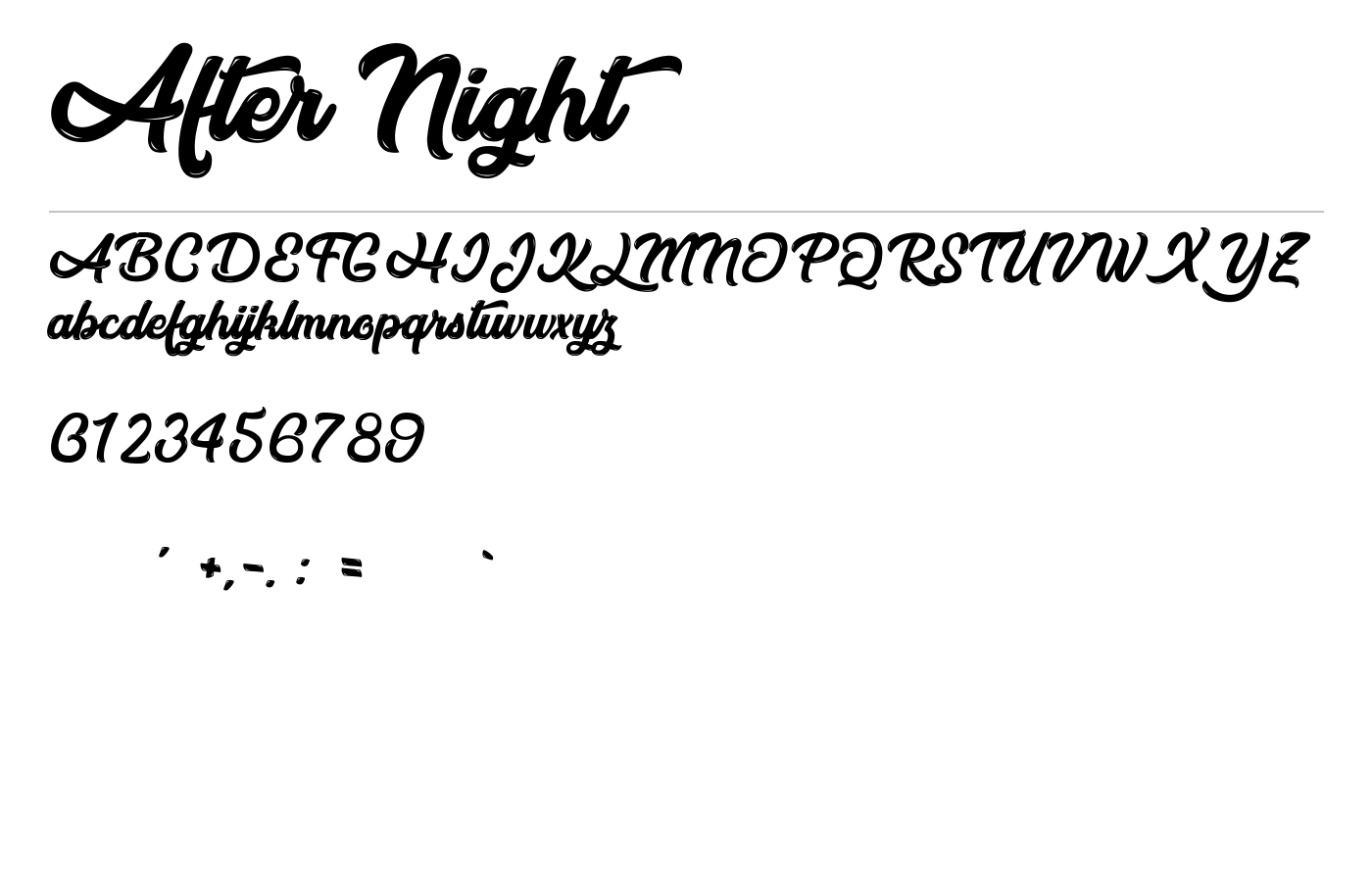
After Night is a bold and lively script font with a smooth, flowing style that combines elegance with a playful charm. Its thick, rounded strokes and distinctive letterforms make it perfect for headlines, logos, and branding that seek a friendly yet stylish personality, ideal for fashion, events, or creative projects. This font stands out with its clear readability despite its script nature, offering an inviting and dynamic feel for eye-catching design.
After Night Font
About After Night Font
| Font family | After Night Font |
| Designer | Octotype |